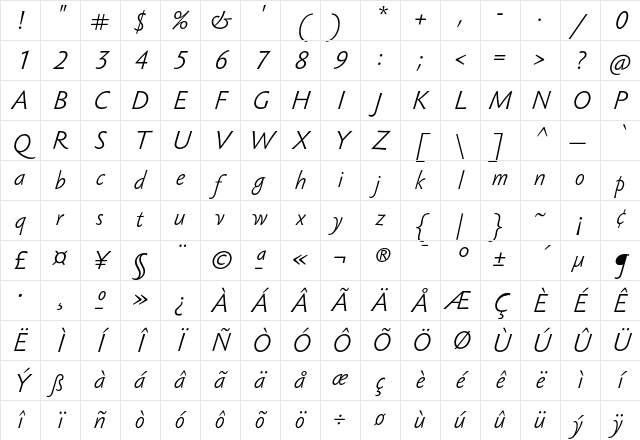
Complete Sebastian Light UCF Light Italic glyph index. Displaying only characters natively supported by Sebastian Light UCF Light Italic font.
Sebastian Light UCF is a composed and adaptable typeface that performs quietly and consistently across a wide range of design contexts. The slanted form adds forward momentum and visual energy. Its slender proportions lend an understated elegance to any composition.
Pro Tip: Use Sebastian Light UCF for emphasis, pull quotes, and subheadings where its slanted energy can add rhythm to the layout.